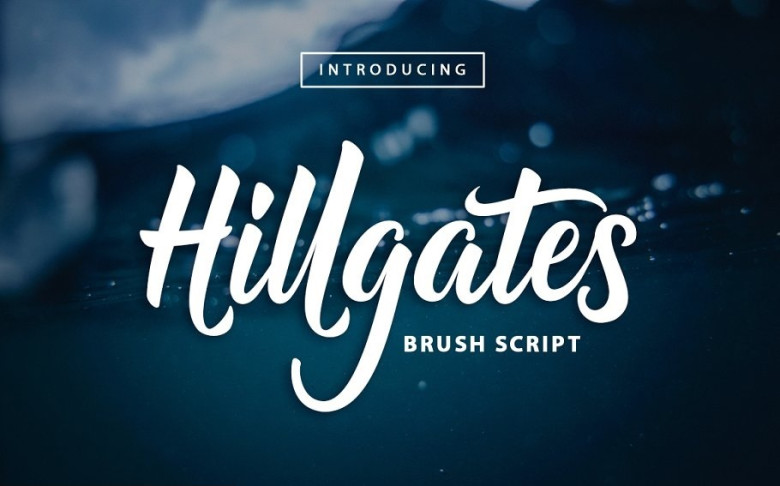
Hillgates Font
Hillgates is a stylish hand-brushed script that comes with OpenType features including stylistic alternates, contextual alternates, ligatures, and many others. The bold letter will easily provide excellent impression and truly expressive designs.
Hillgates Script Brush Font